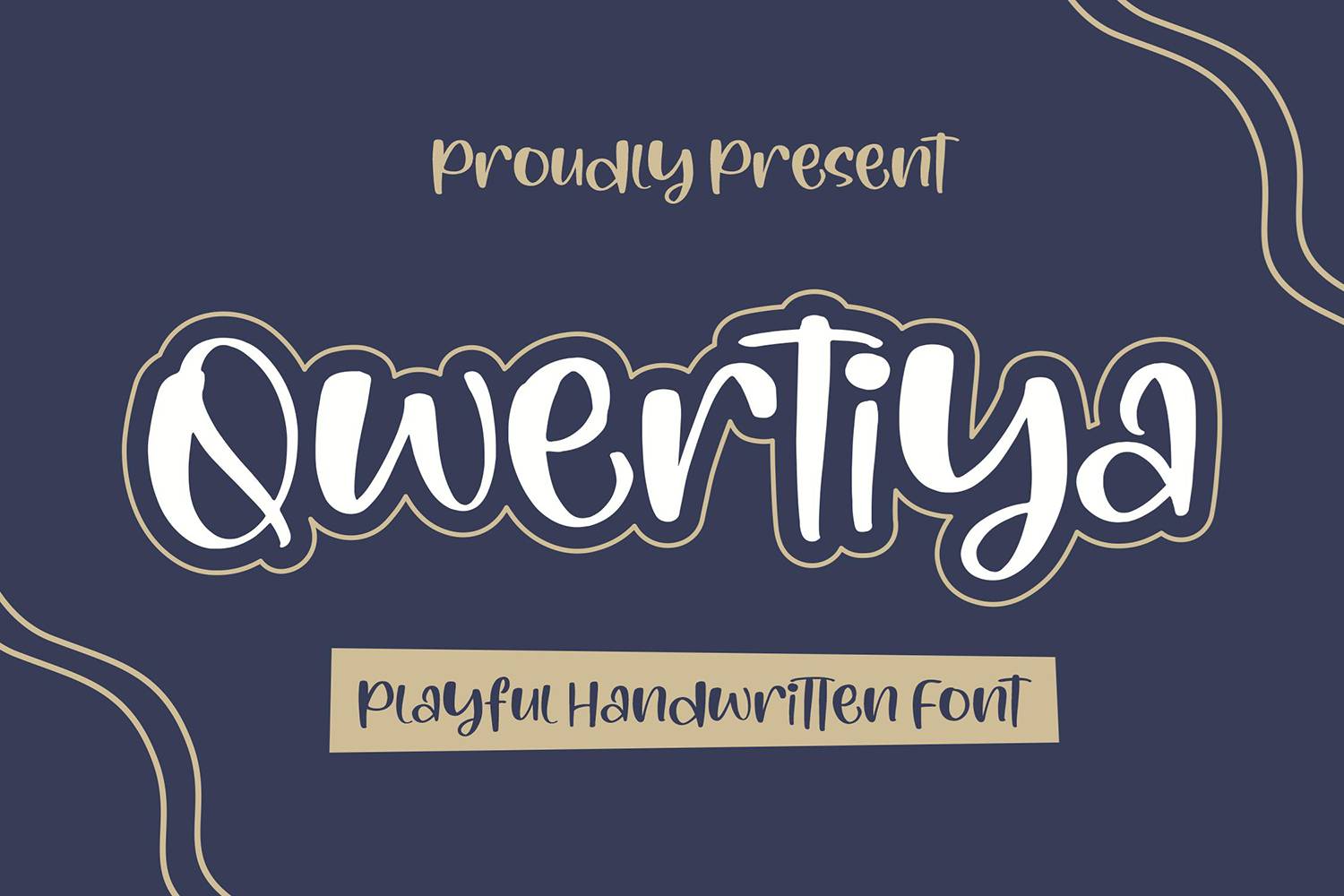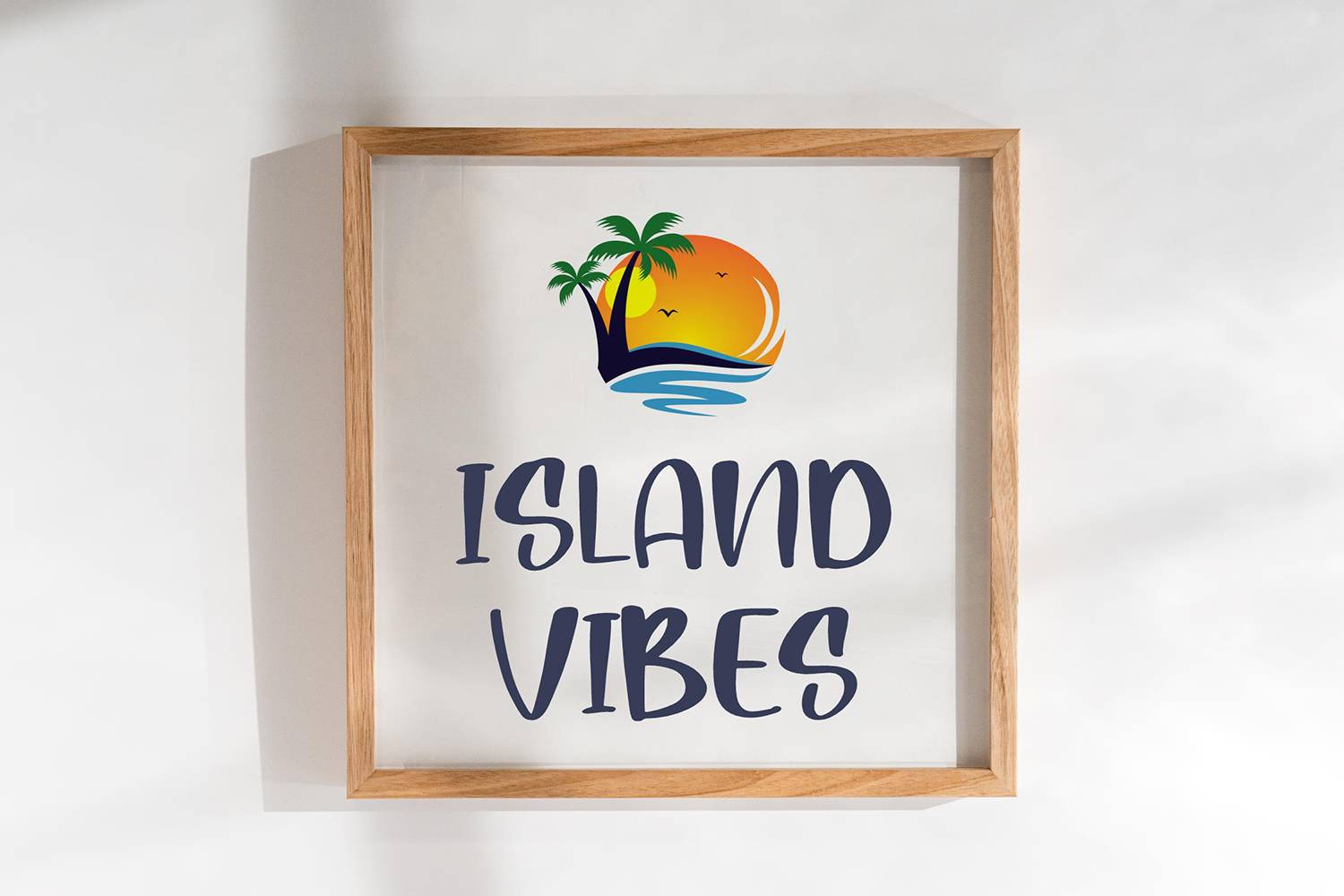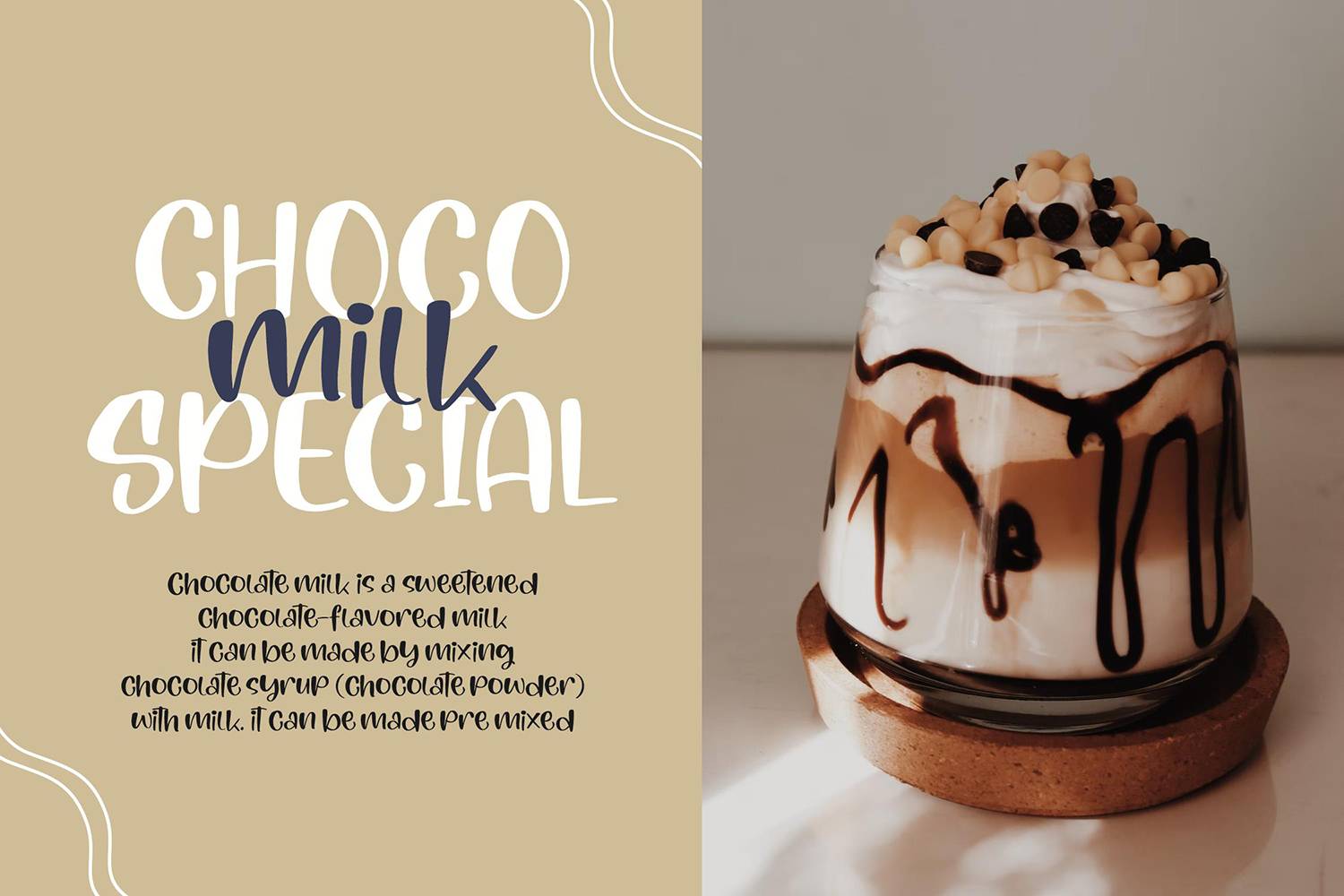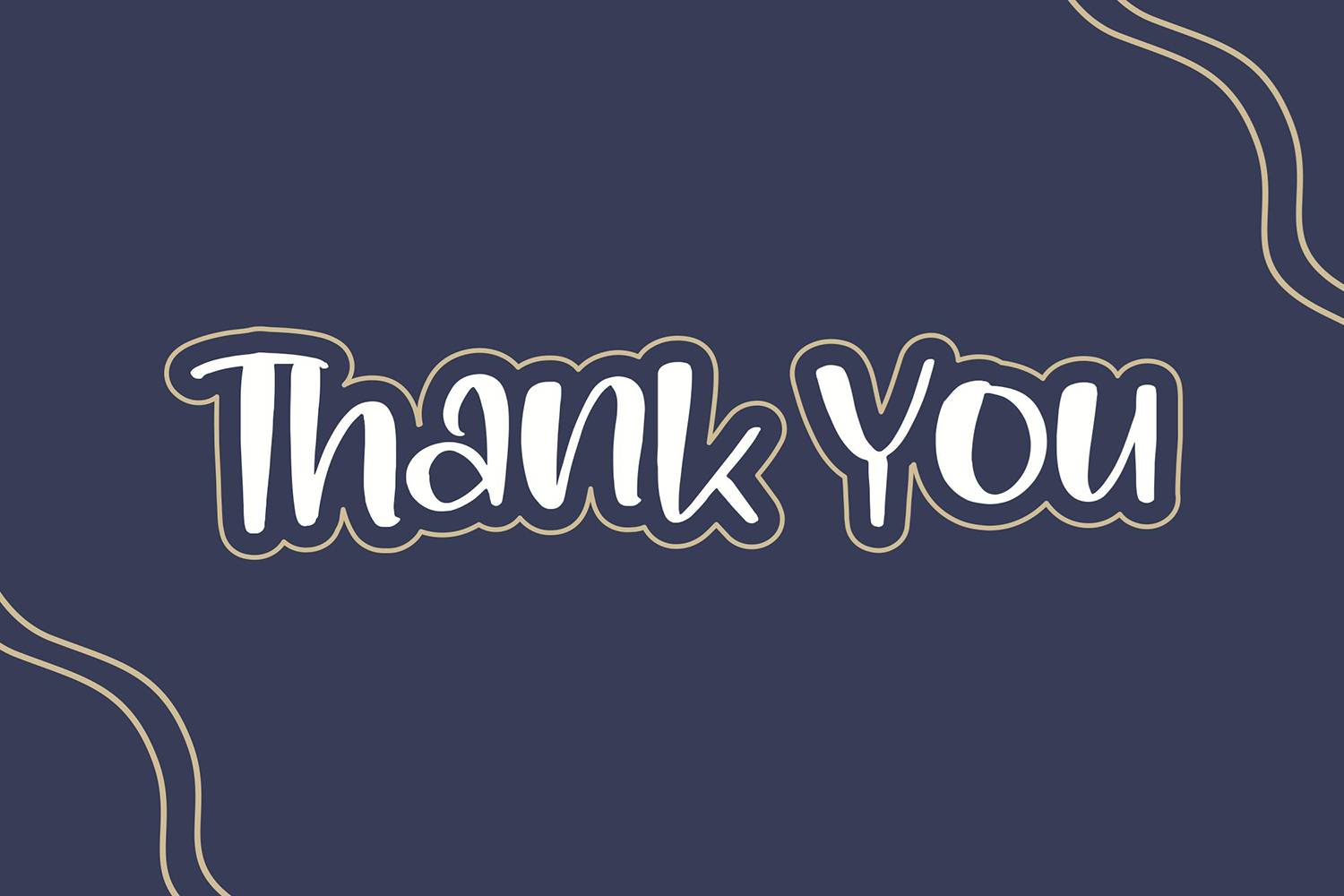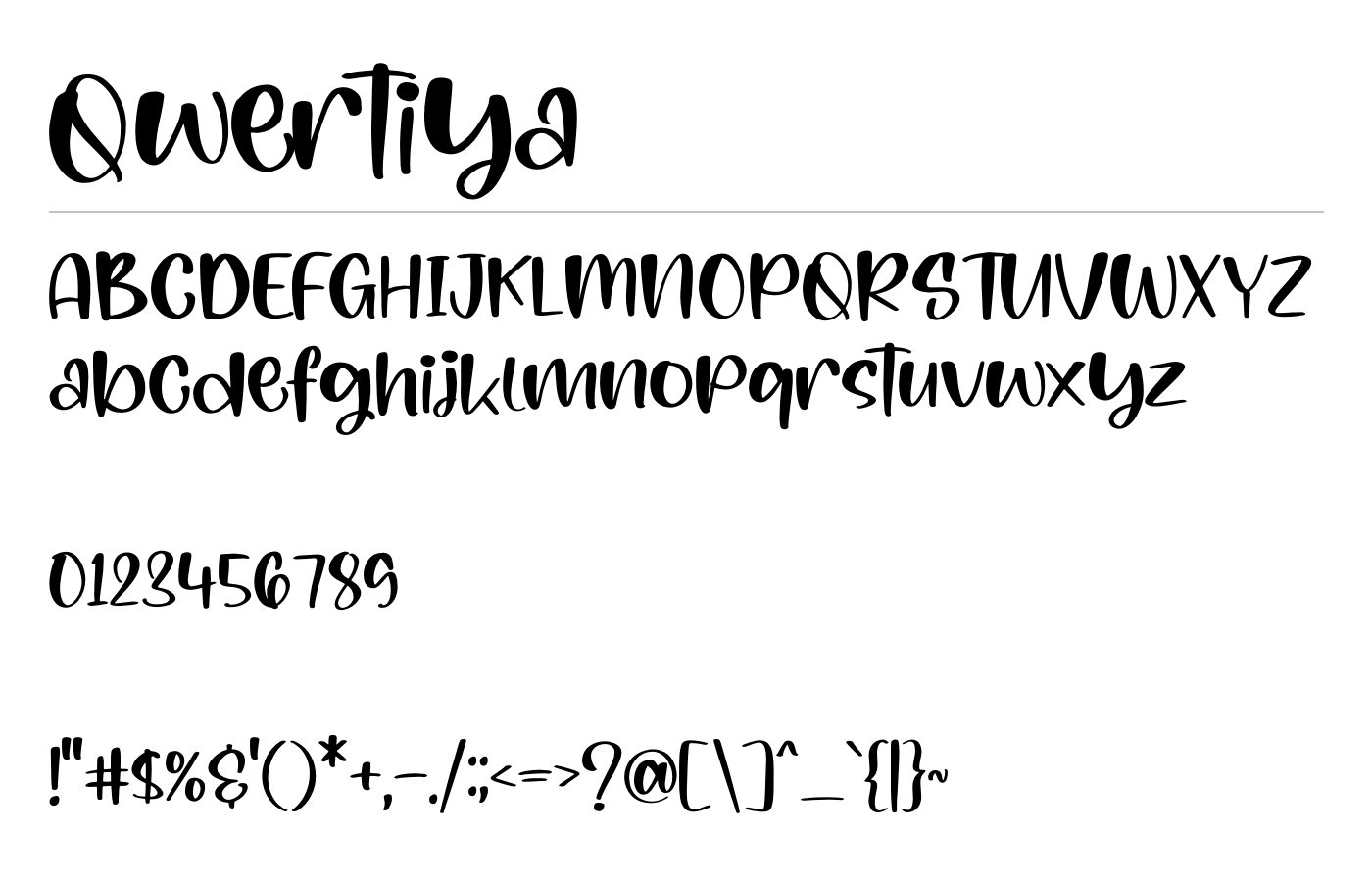
Qwertiya is a lively handwritten script font with a playful and casual feel. Its moderate weight and upright, slightly irregular letterforms give it a friendly, approachable style perfect for creative and informal designs. This font works great for branding, invitations, and social media graphics where a personal, cheerful touch is desired.
Qwertiya Font
About Qwertiya Font